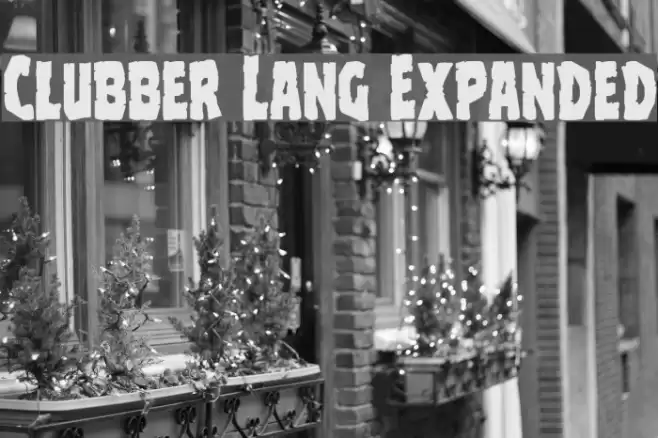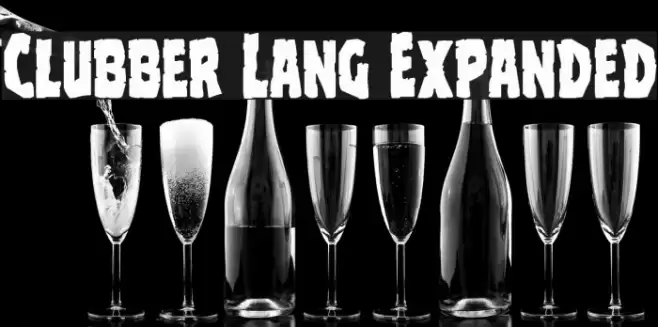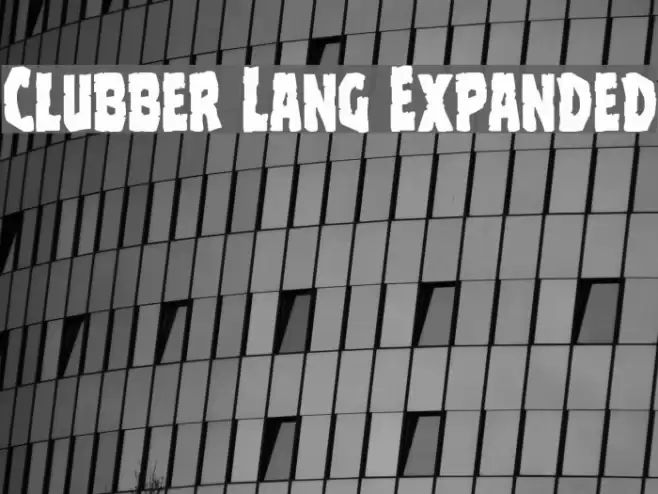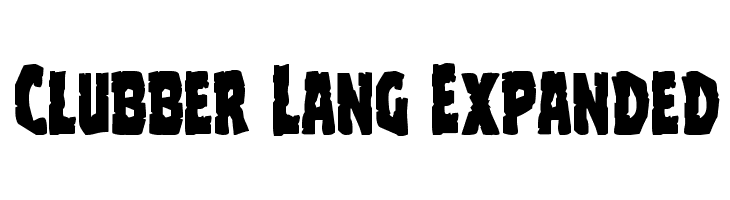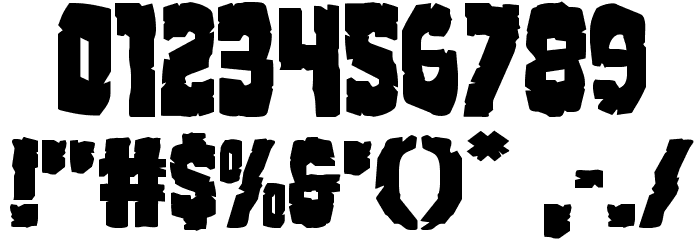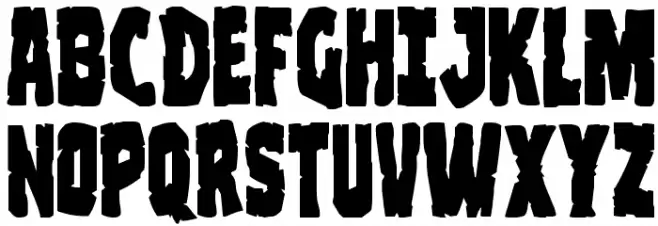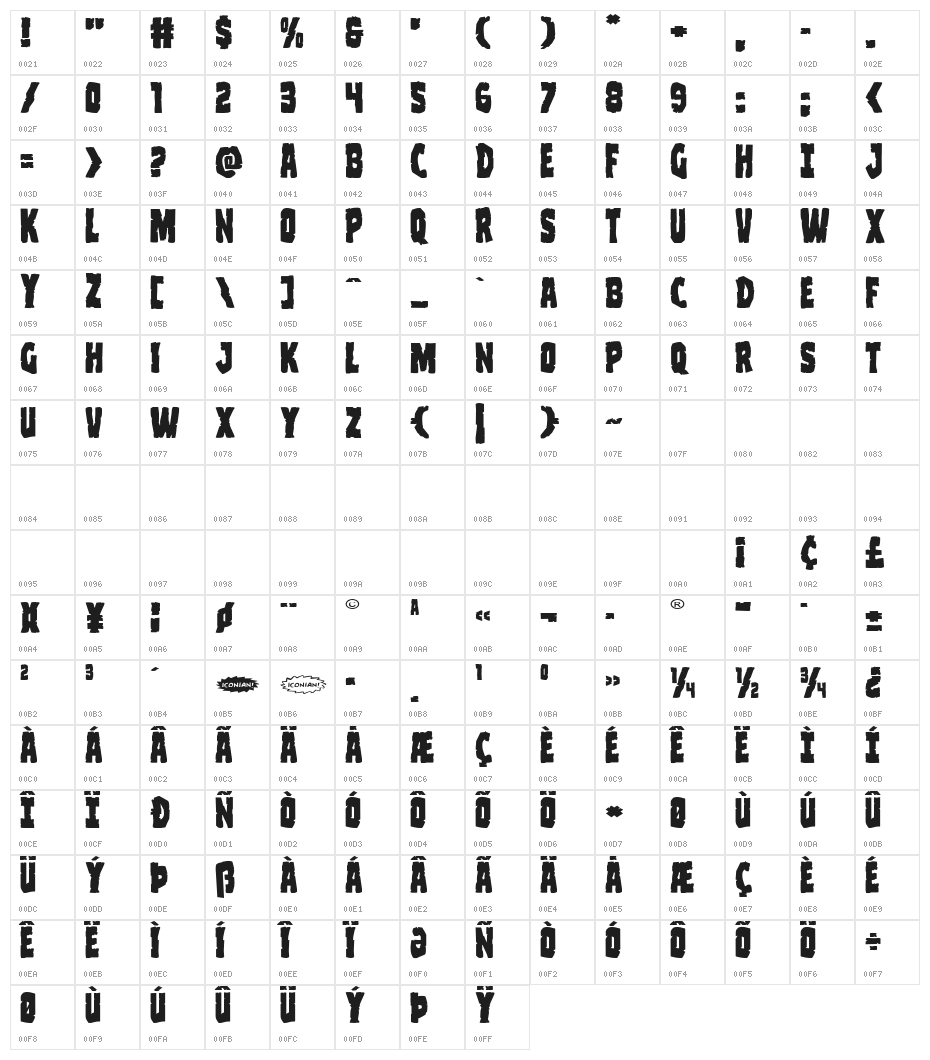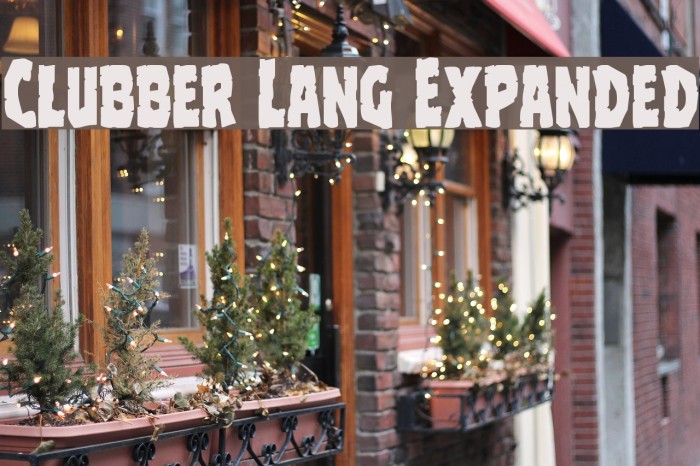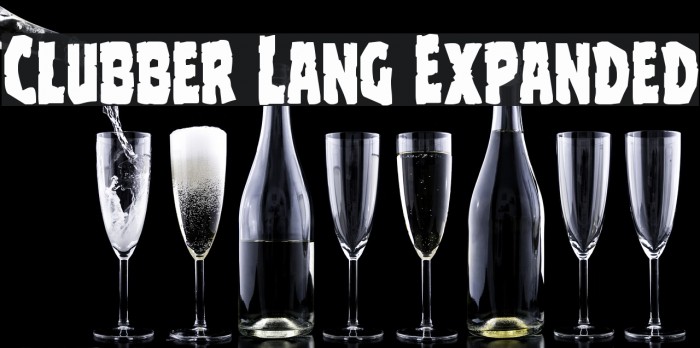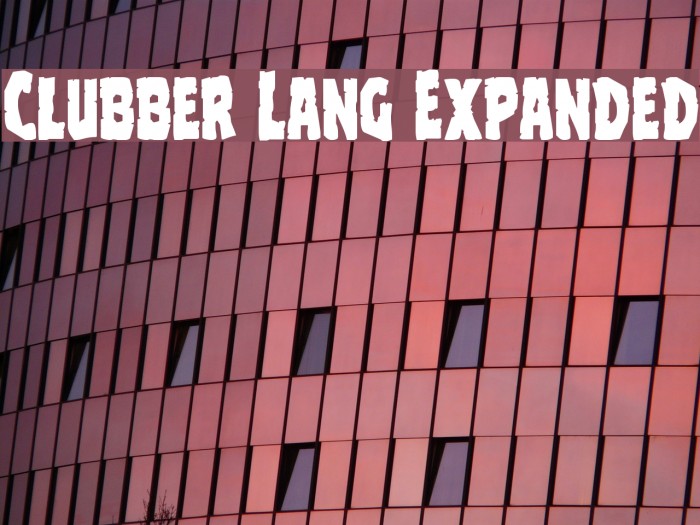
Clubber Lang Expanded Font
Clubber Lang Expanded Description
This font features a bold and rugged design with a distressed, grunge-like appearance. The characters are heavily stylized, with rough edges and irregular shapes, giving it a raw and dynamic feel. The uppercase and lowercase letters maintain a consistent style, while the numbers and special characters follow suit with the same bold and textured look. This font is ideal for projects that require a strong visual impact and a sense of edginess or rebellion.
A bold, distressed font with a rugged, grunge-like appearance from Cartoon fonts.
- Proposed Projects: Ideal for music album covers, event posters, streetwear branding, and any project needing a bold, edgy aesthetic.